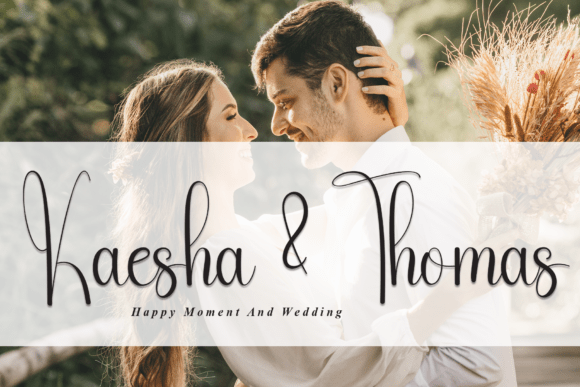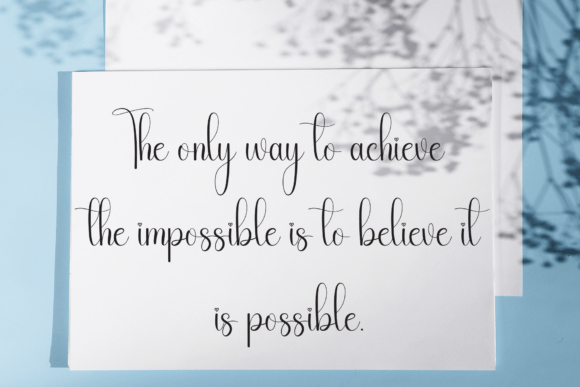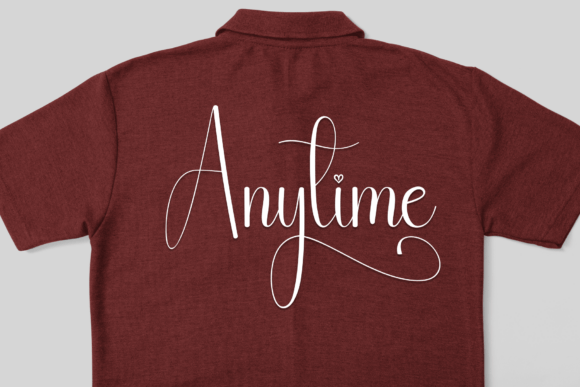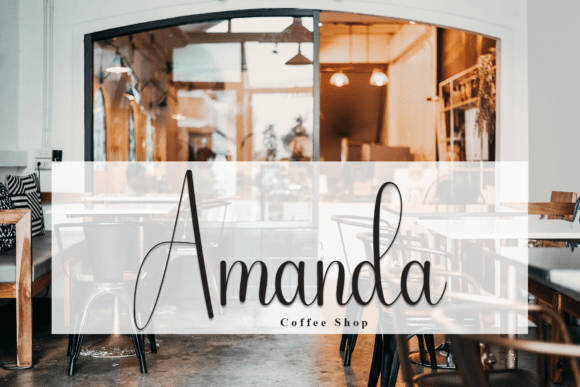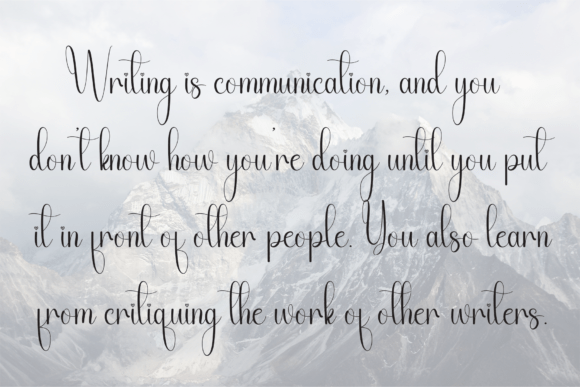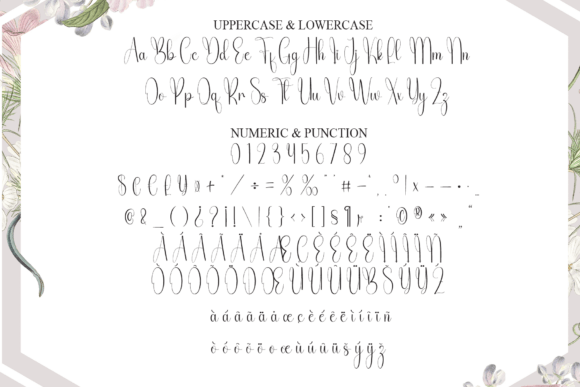
Introducing Autography Font: Elevate Your Designs with Elegance and Charm
In the world of typography, few fonts manage to capture the essence of elegance and charm as effortlessly as Autography. This stylish handwritten script font is designed to bring a touch of sophistication and refinement to any design project. Whether you’re working on branding, invitations, stationery, or any other creative endeavor, Autography is the perfect choice for those seeking a font that exudes fluidity and grace.
The Characteristics of Autography Font
Autography is distinguished by its fluid, graceful strokes that flow smoothly into one another, creating a natural and effortless look. The font features smooth curves and a natural flow, which contribute to its timeless and refined appearance. Each letter is crafted with precision and attention to detail, ensuring that the font maintains a high level of legibility while still conveying a sense of personal touch.
One of the key advantages of Autography is its versatility. This font is perfectly suited for a wide range of design projects, including:
- Branding: Use Autography to create a memorable and sophisticated brand identity that stands out from the competition.
- Invitations: Add a touch of elegance to your wedding invitations, birthday parties, or any other special occasion with Autography’s refined script.
- Stationery: Elevate your business or personal stationery with a font that exudes professionalism and style.
- Packaging: Use Autography to create eye-catching packaging that reflects your brand’s personality and values.
Why Choose Autography Font?
With so many fonts available, why should you choose Autography for your next design project? Here are a few compelling reasons:
- Elegance: Autography’s fluid strokes and smooth curves create a truly elegant look that is sure to impress.
- Versatility: The font’s versatility means you can use it for a wide range of design projects, from branding to stationery.
- Timeless: Unlike trendy fonts that quickly go out of style, Autography’s classic look ensures it will remain relevant for years to come.
- Easy to Read: Despite its elegant appearance, Autography is easy to read, making it perfect for both digital and print applications.
Tips for Using Autography Font Effectively
To get the most out of Autography, here are a few tips to keep in mind:
- Pair with Complementary Fonts: Combine Autography with sans-serif fonts for a modern contrast or with serif fonts for a classic look.
- Use it Sparingly: While Autography is beautiful, it can be overwhelming if overused. Use it for headings or key messages to create impact.
- Experiment with Colors: Autography looks stunning in a variety of colors, from rich blacks and blues to soft pastels.
Autography is more than just a font – it’s a design statement. With its elegant strokes, smooth curves, and timeless look, it’s the perfect choice for designers and crafters seeking to add a touch of sophistication to their work. Whether you’re creating branding materials, invitations, or stationery, Autography is sure to elevate your designs and leave a lasting impression.